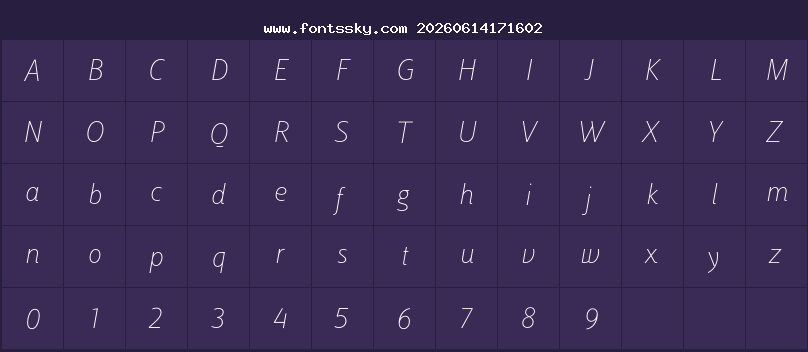
• Designer: Antonio Pace/Riccardo La Leggia
About Luiss Sans Thin Italic.otf
Luiss Sans Thin Italic.otf is a modern, elegant sans-serif font designed for ultimate readability and visual harmony. Perfect for branding, headlines, web design, and print materials.